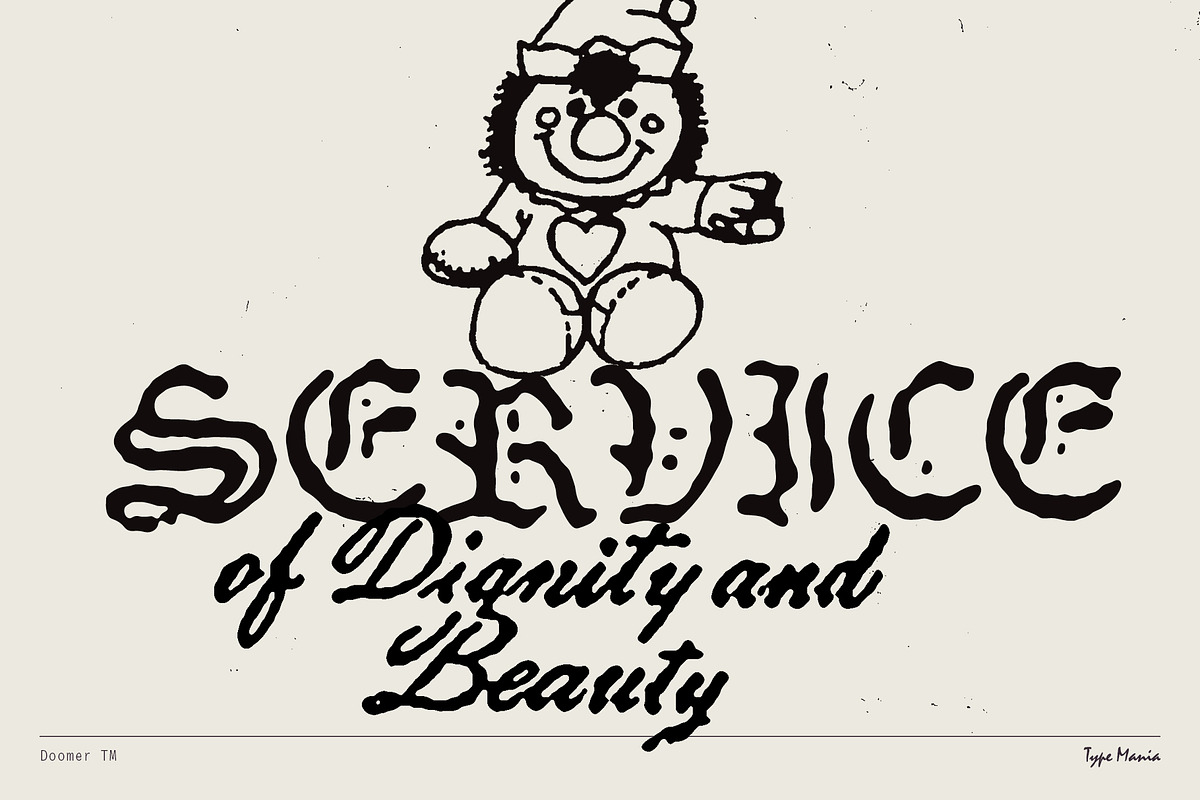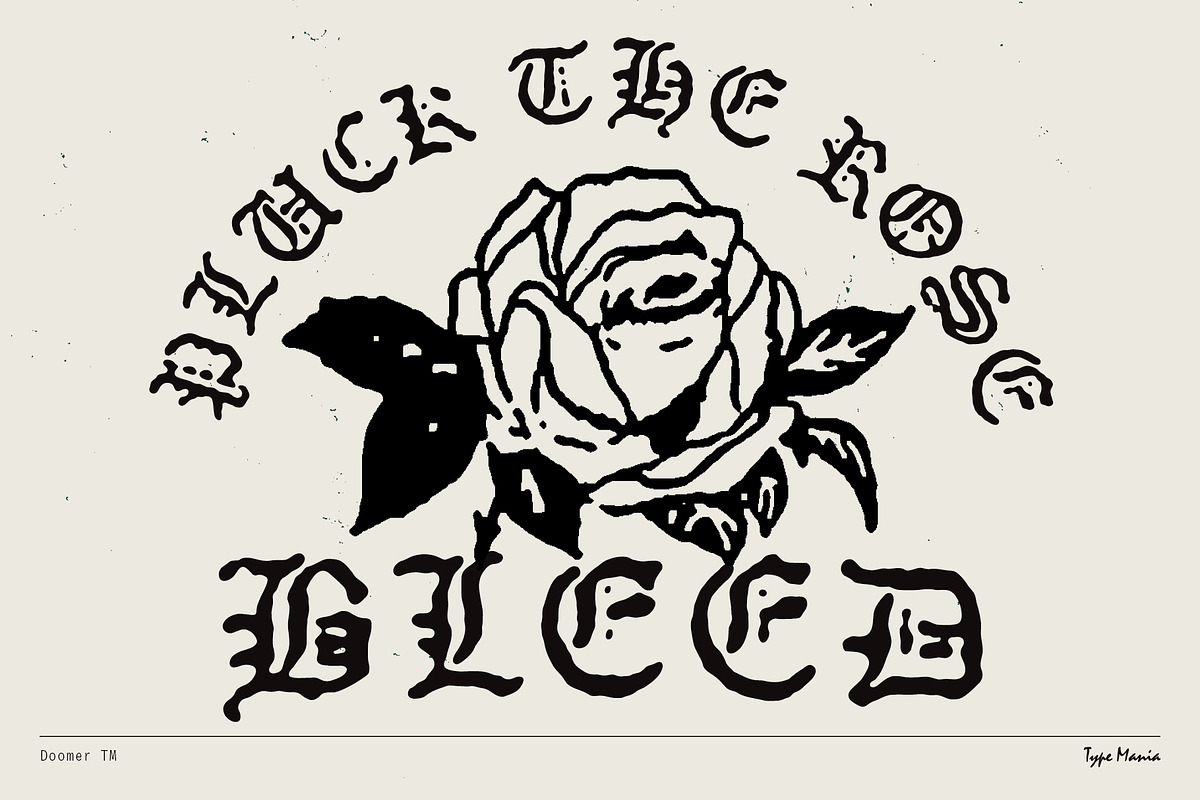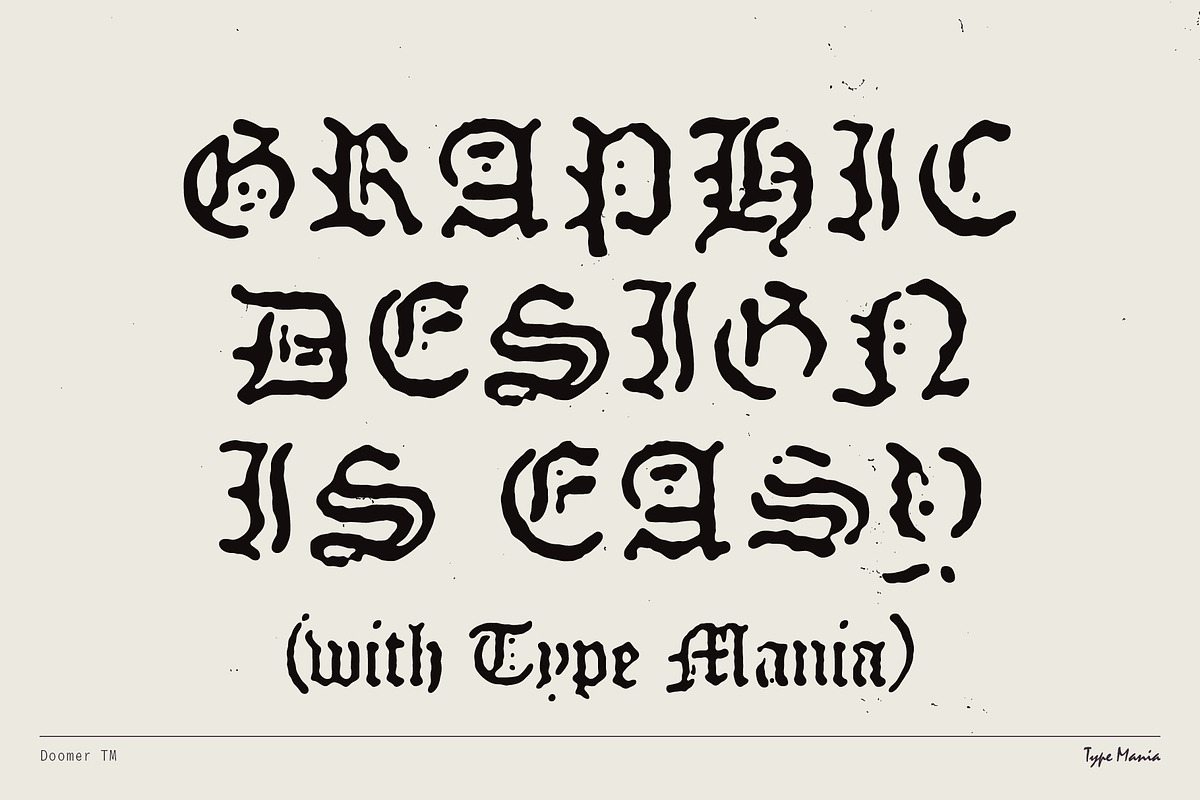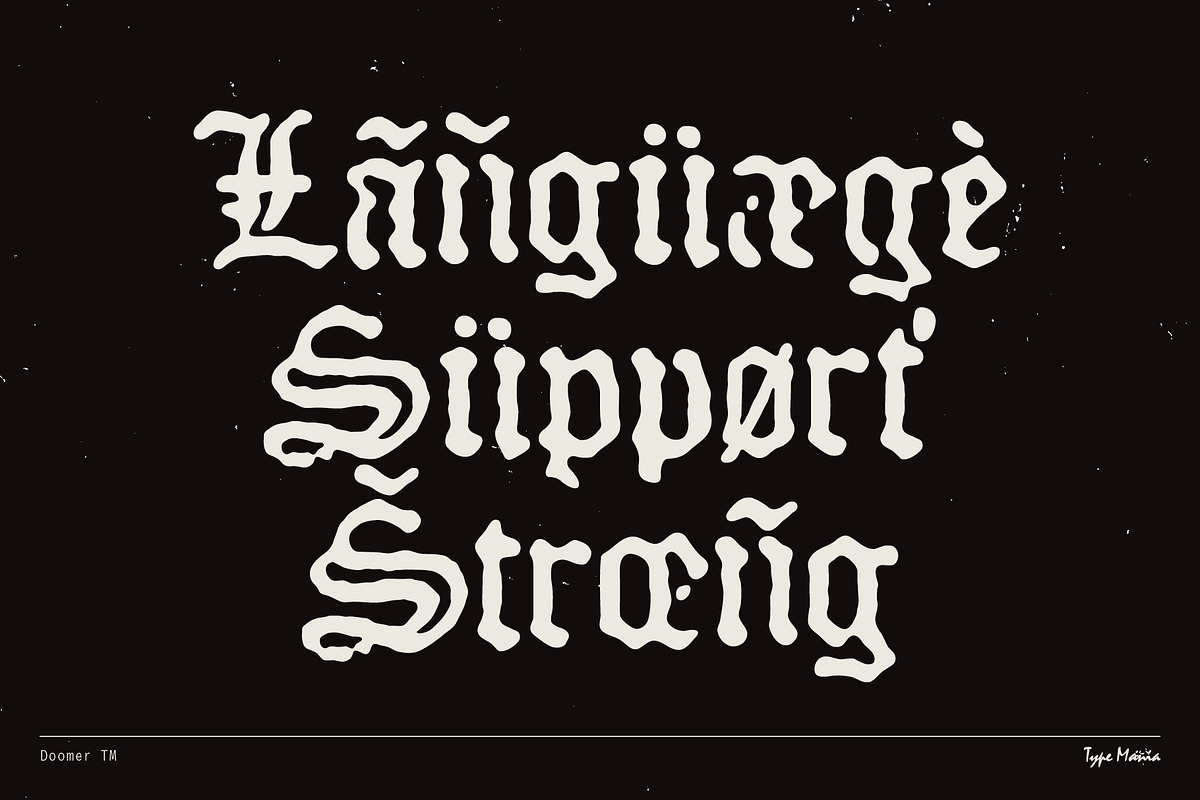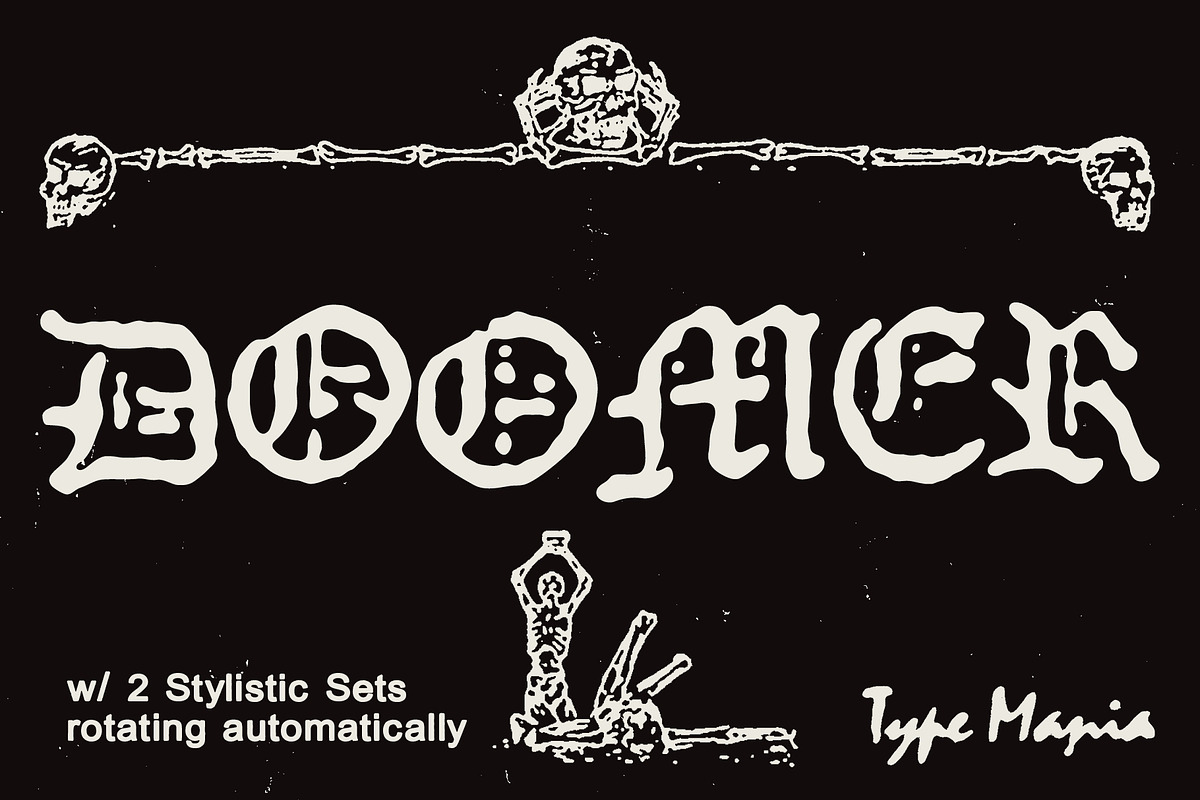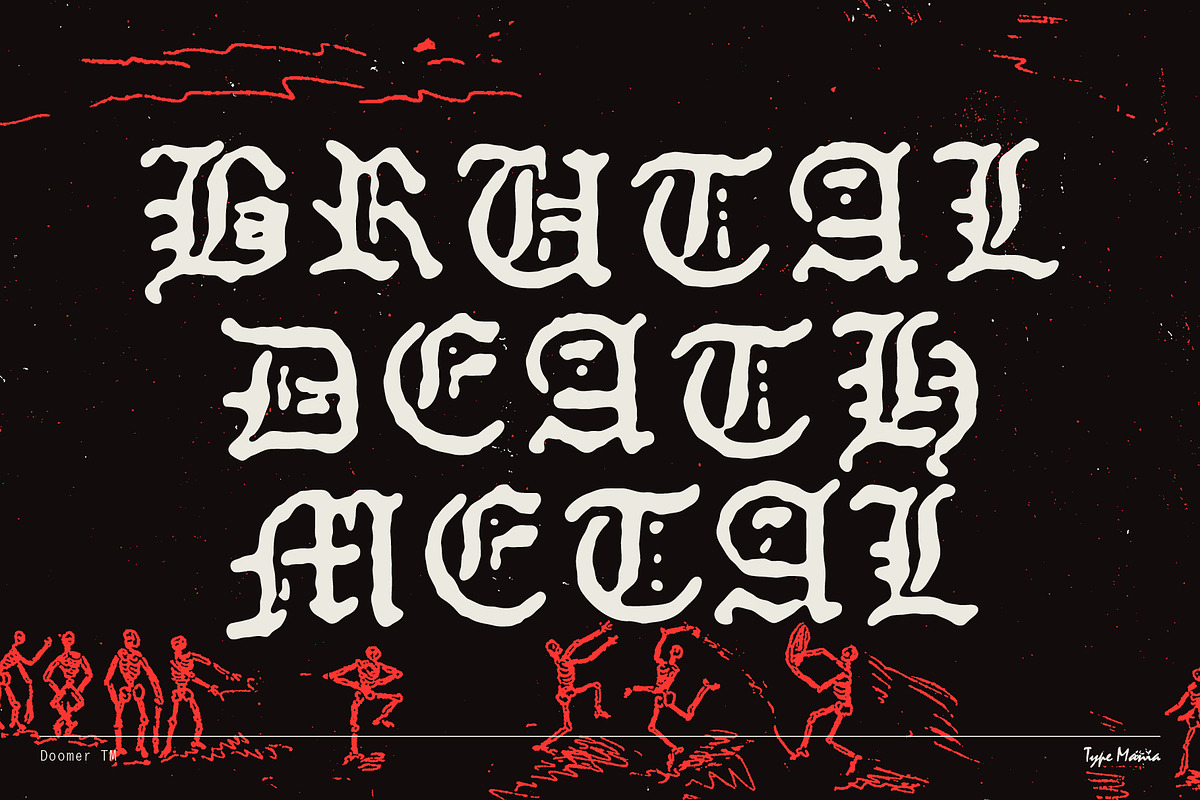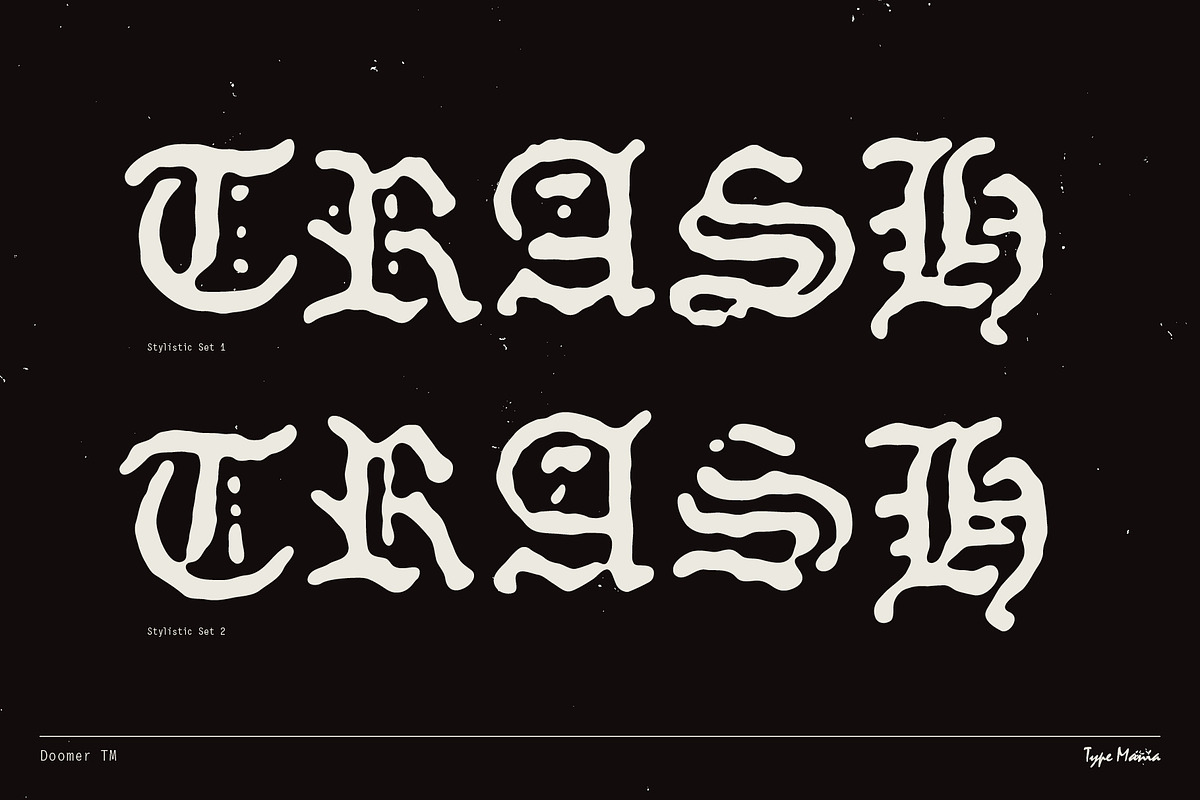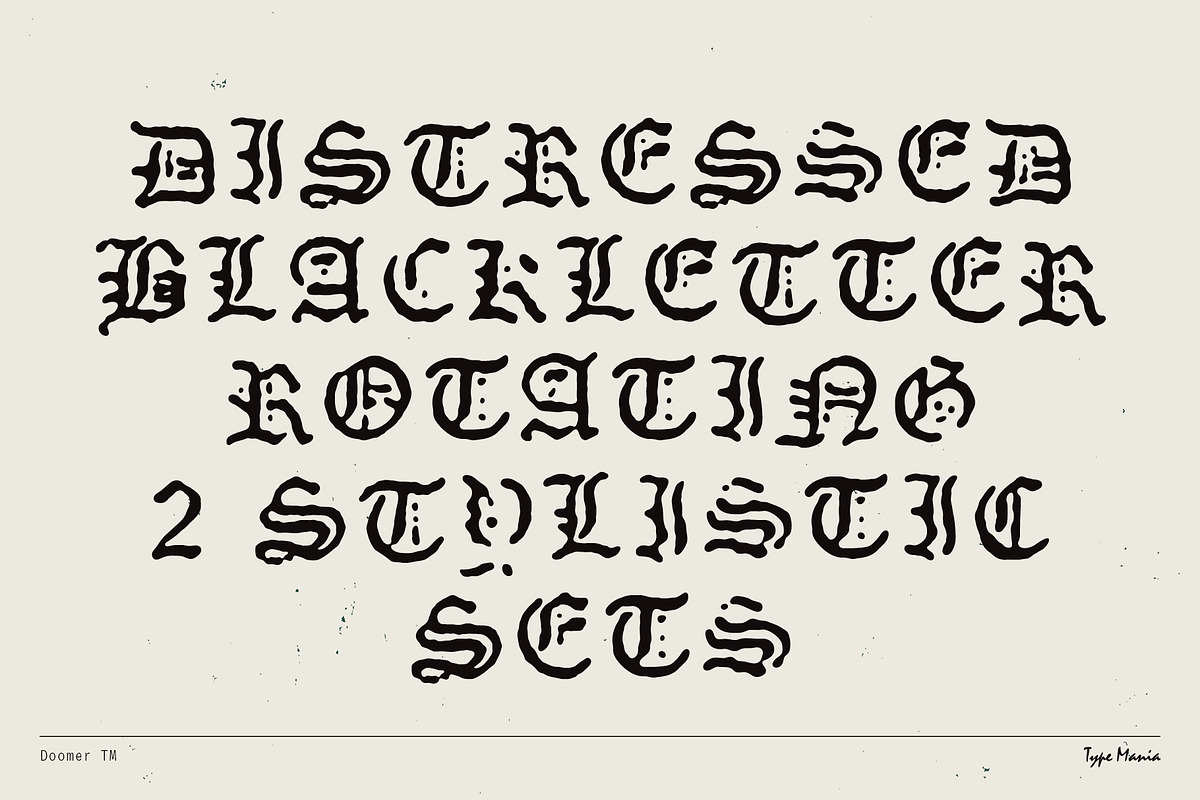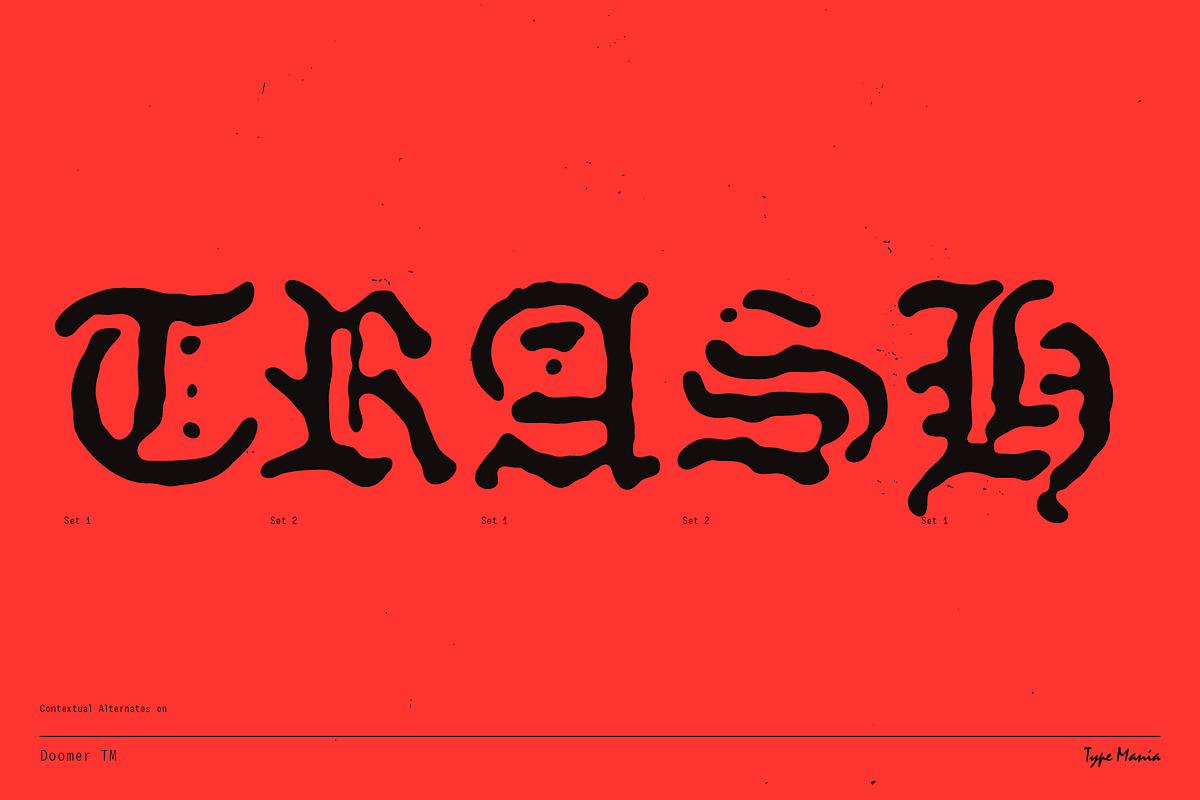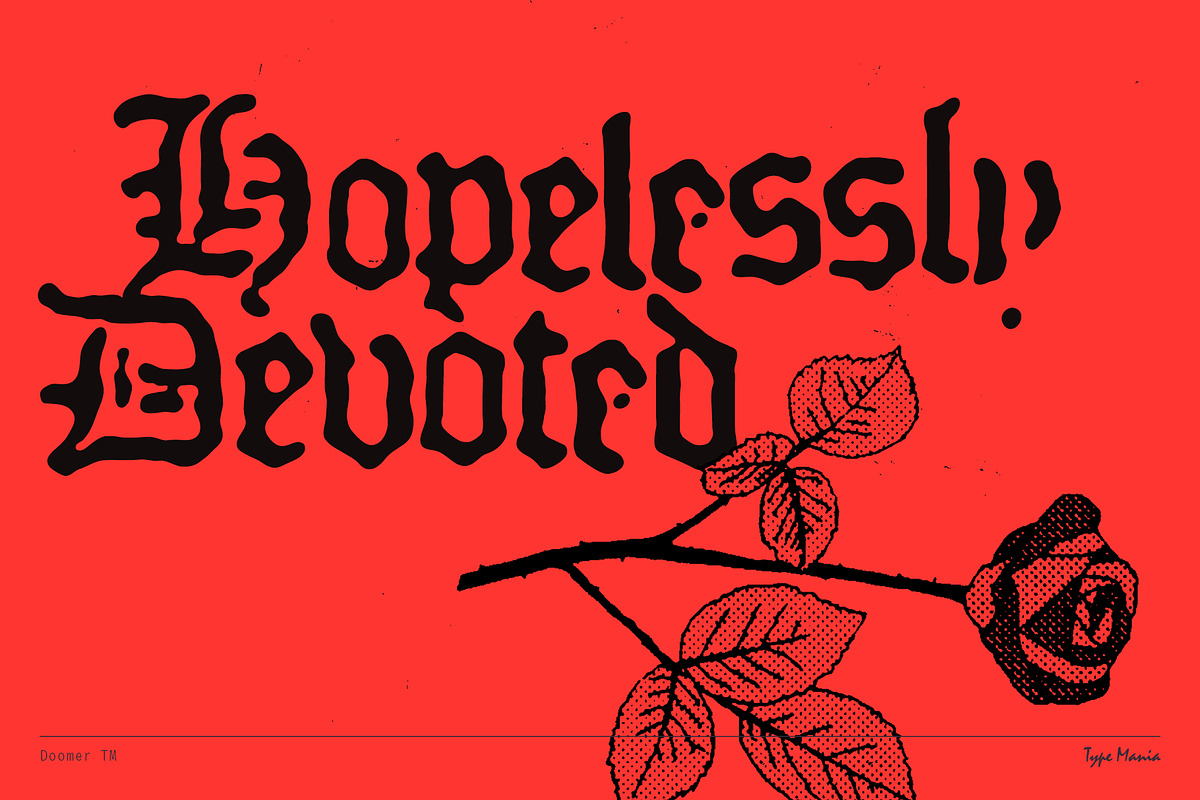
Doomer TM – Distressed Blackletter
Doomer TM is a blackletter font with soft edges and multi-xerored character. Two stylistic sets alternate automatically (with the contextual alternates turned on), making your job that much easier 🤘🤘
OpenType features
- 2 stylistic sets
- The font is programmed to automatically shift between the stylistic sets